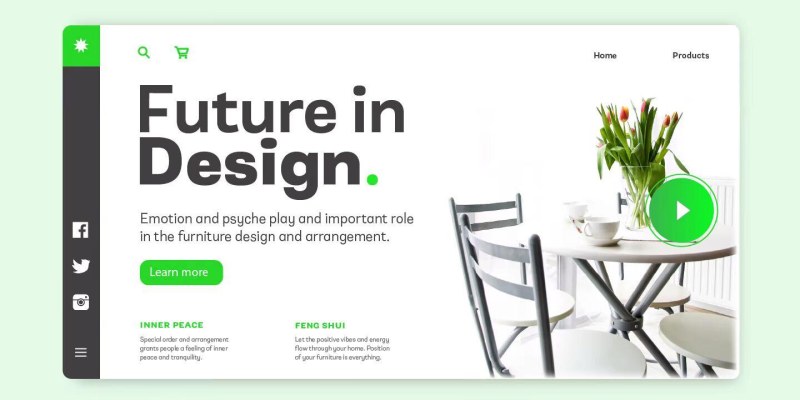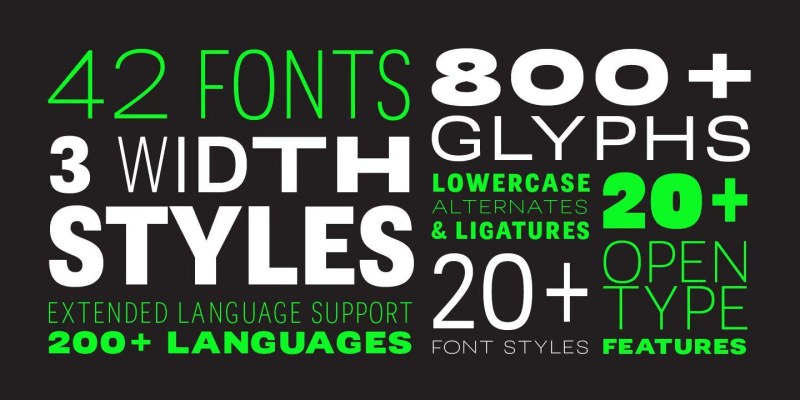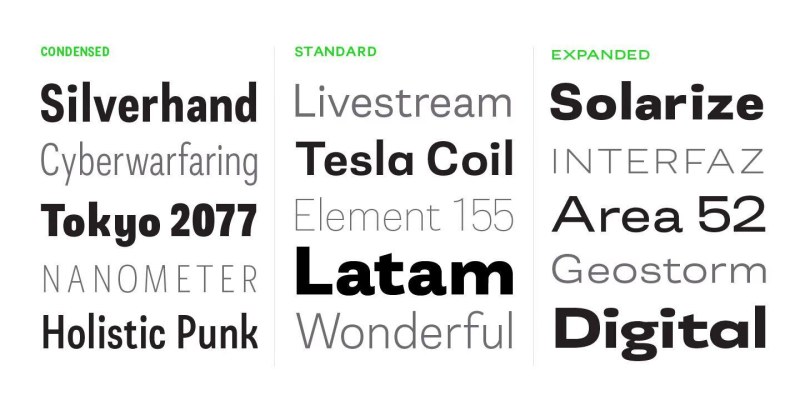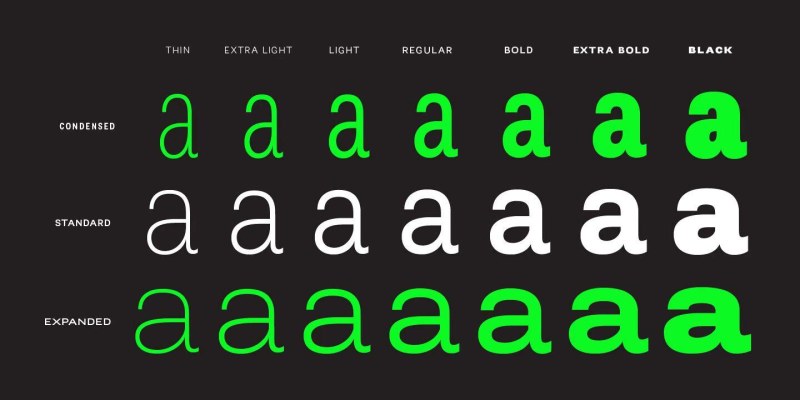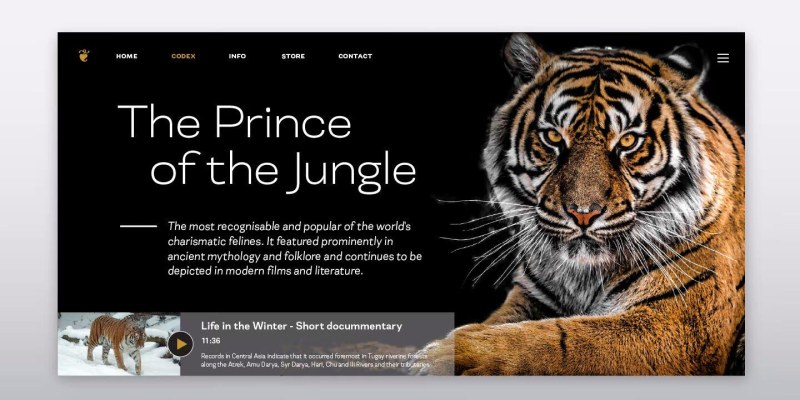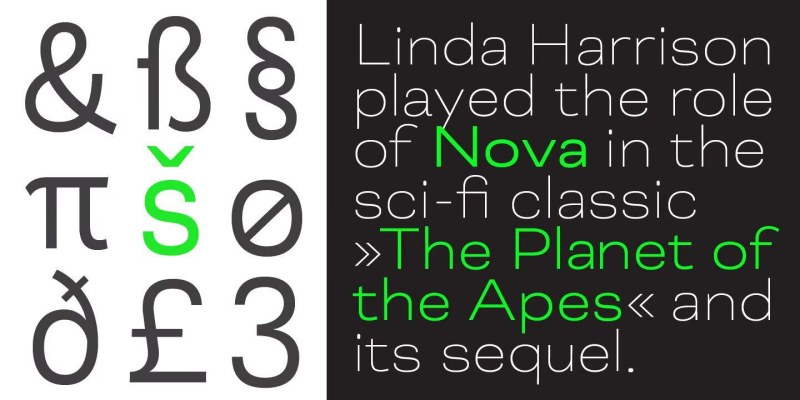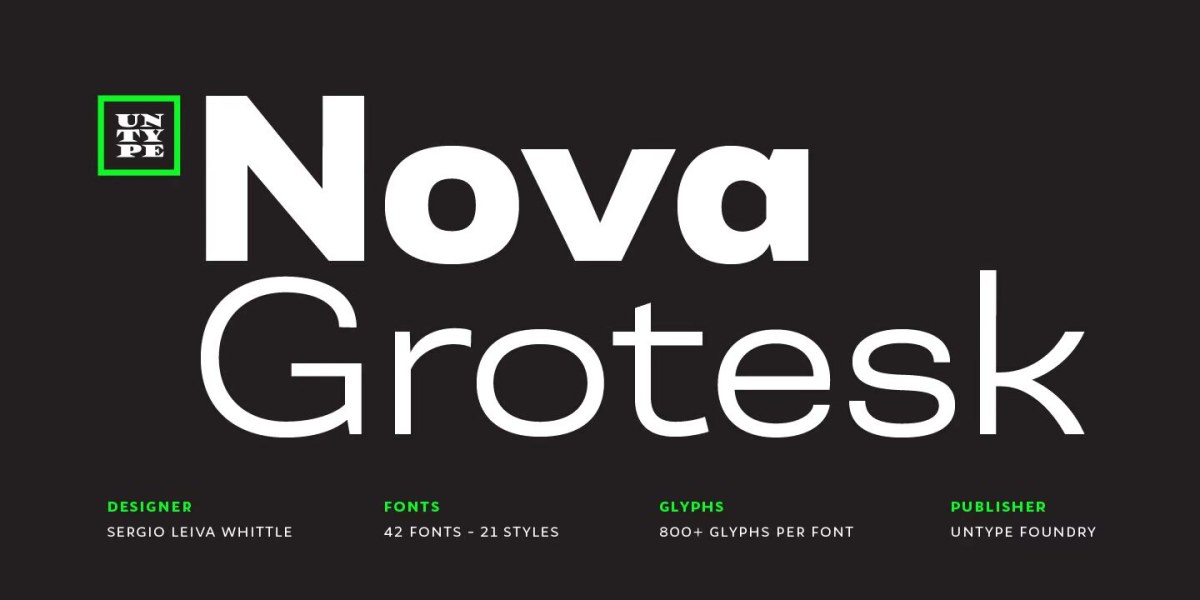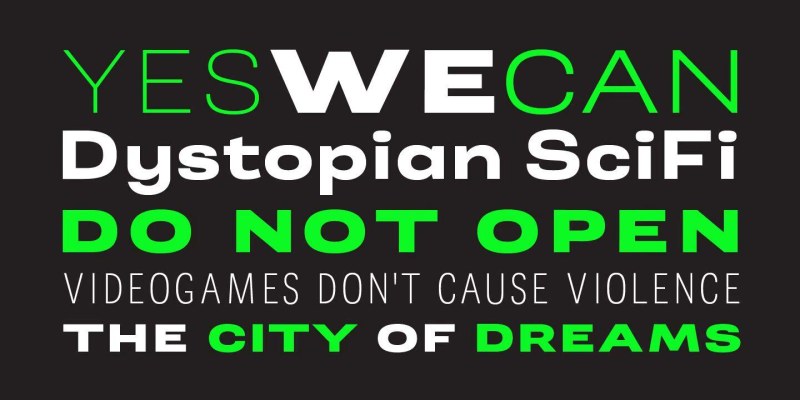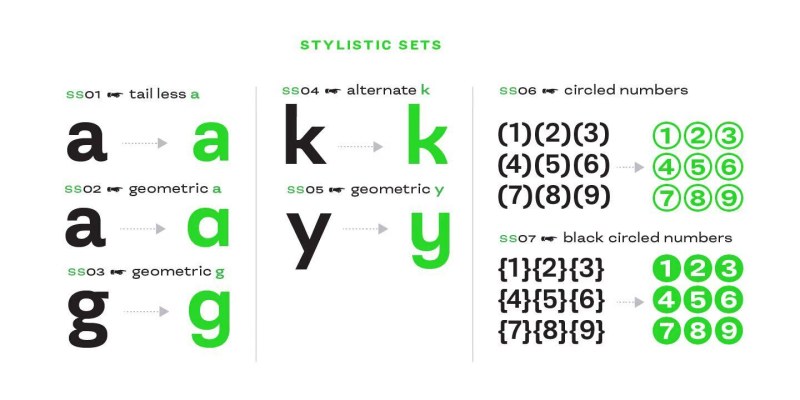
Nova Grotesk Font Family
Nova Grotesk is a contemporary interpretation of the classic sans serif model born in the early 19th century that flirts with a humanist spirit, becoming a cozy Grotesque full of personality and functionality. Ranging from Thin to Black, it offers 7 weights plus matching obliques on 3 widths for a total of 42 styles, a vast horizon of possibilities for a typeface that includes more than 800 glyphs per style, more than 20 OpenType features, small caps, old style and tabular numbers, stylistic alternates, ornaments and plenty of other attributes for your typographic delight and delirium.
Nova Grotesk is an excellent option for corporate identity and branding. It also works perfectly with signage and information design; its ubiquitous essence and affable scent make Nova Grotesk a typeface for every occasion.
Nova Grotesk Font Family is a Sans Serif Fonts font that brings a professional and versatile look to your projects. Nova Grotesk is a contemporary interpretation of the classic sans serif model born in the early 19th century that flirts with a humanist spirit, becoming a cozy Grotesque full of personality and functionality.